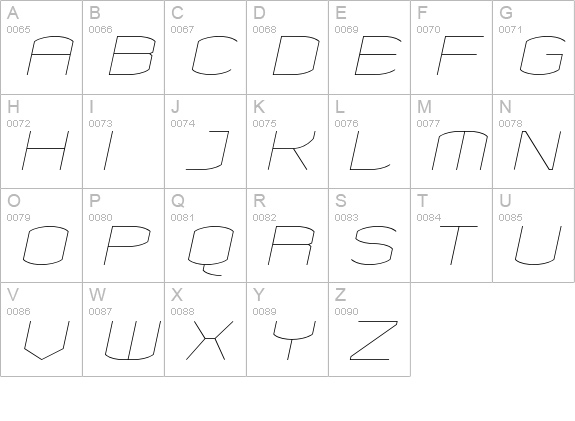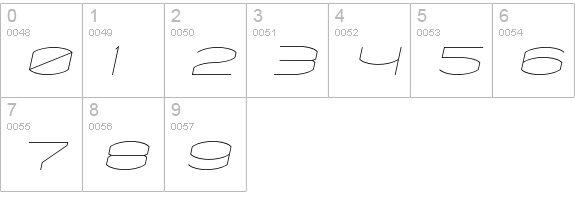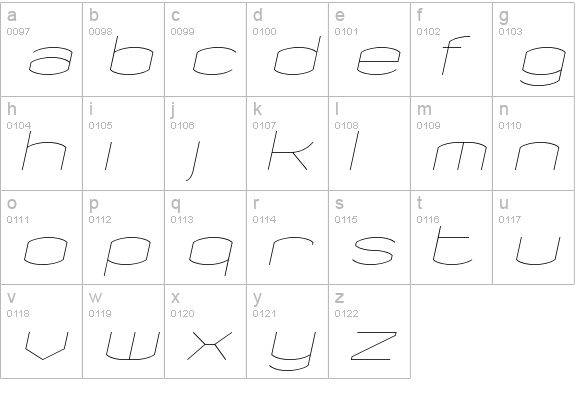
Chord-FineItalic Font Details
Chord-FineItalic is a sleek and elegant font that exudes sophistication and modernity. Its fine italic style adds a touch of refinement to any text or design project. The flowing lines and delicate curves of this font make it perfect for creating a sense of luxury and style. The best part? Chord-FineItalic is completely free to download at FontsMarket.com, making it accessible to everyone looking to elevate their designs with a touch of elegance. Whether you're designing a wedding invitation, a logo, or a branding project, Chord-FineItalic is sure to make your text stand out with its unique and stylish appearance. Don't miss out on the opportunity to enhance your designs with this beautiful font. Download Chord-FineItalic for free today at FontsMarket.com and add a touch of sophistication to your projects.